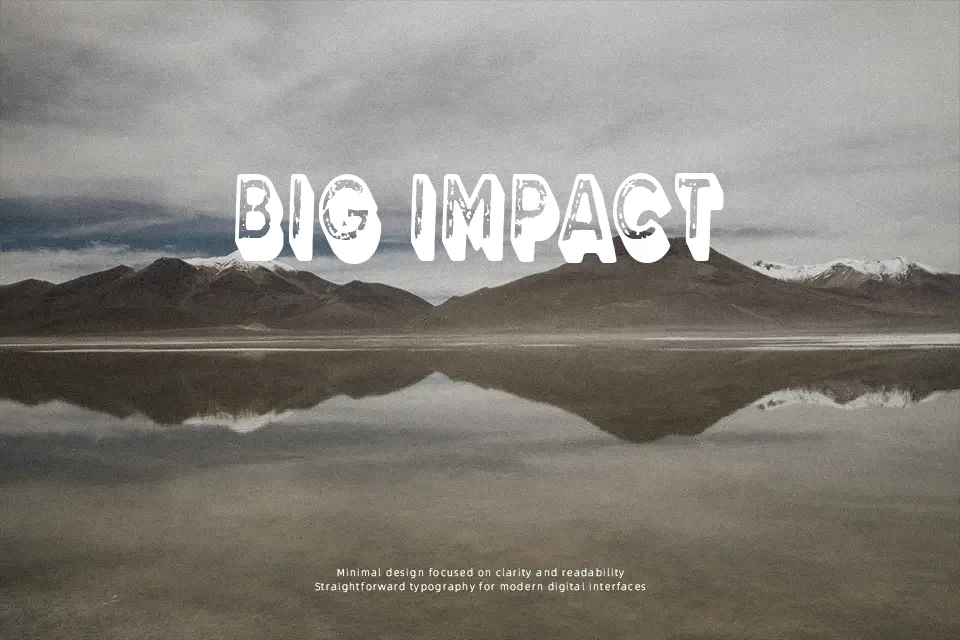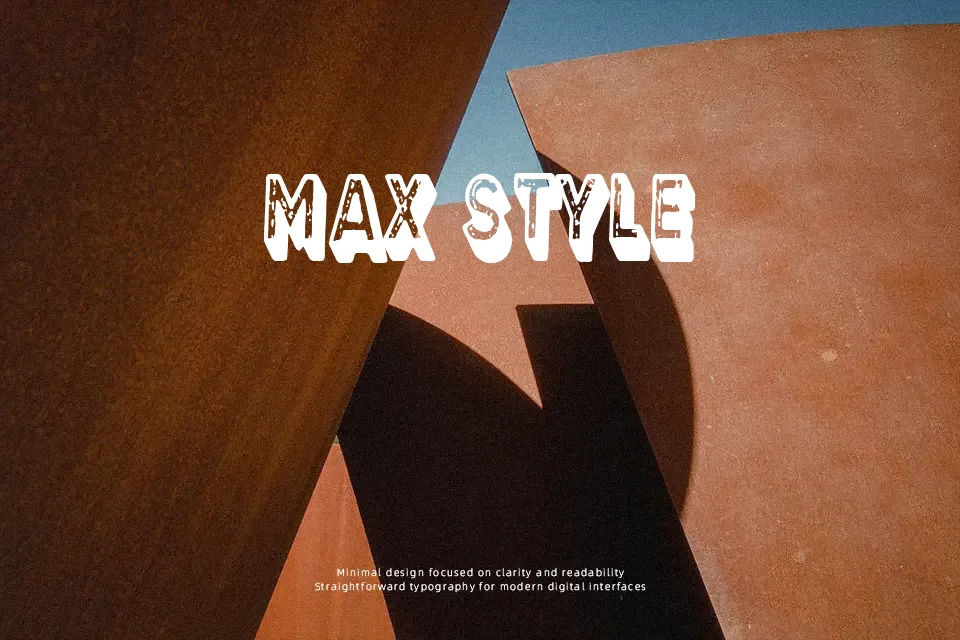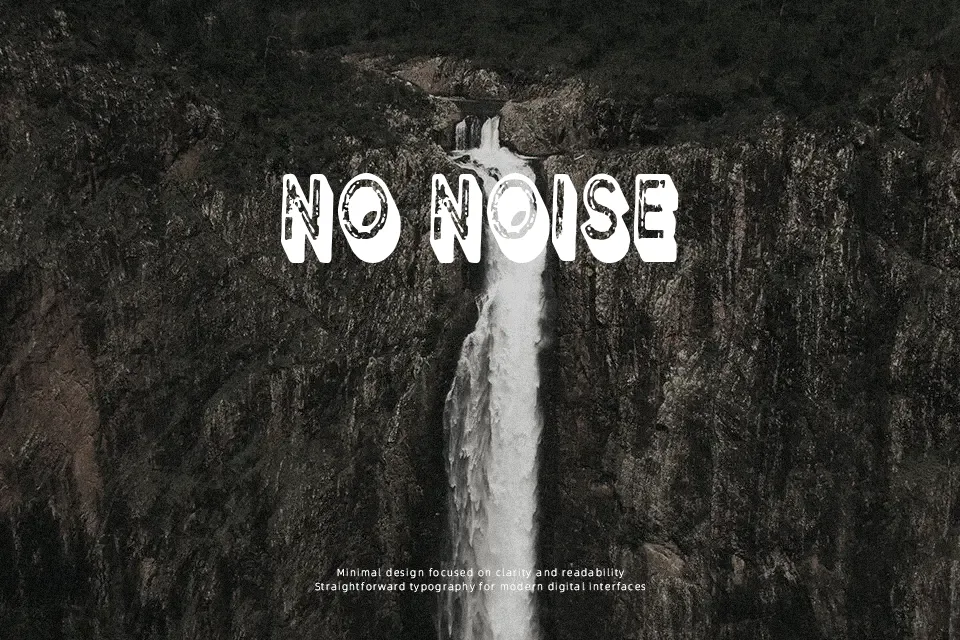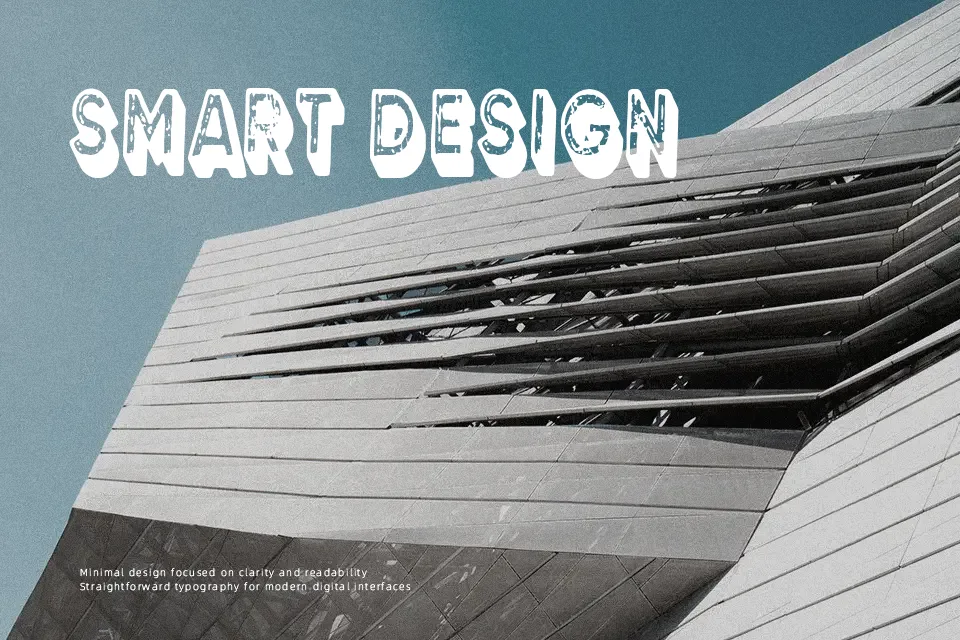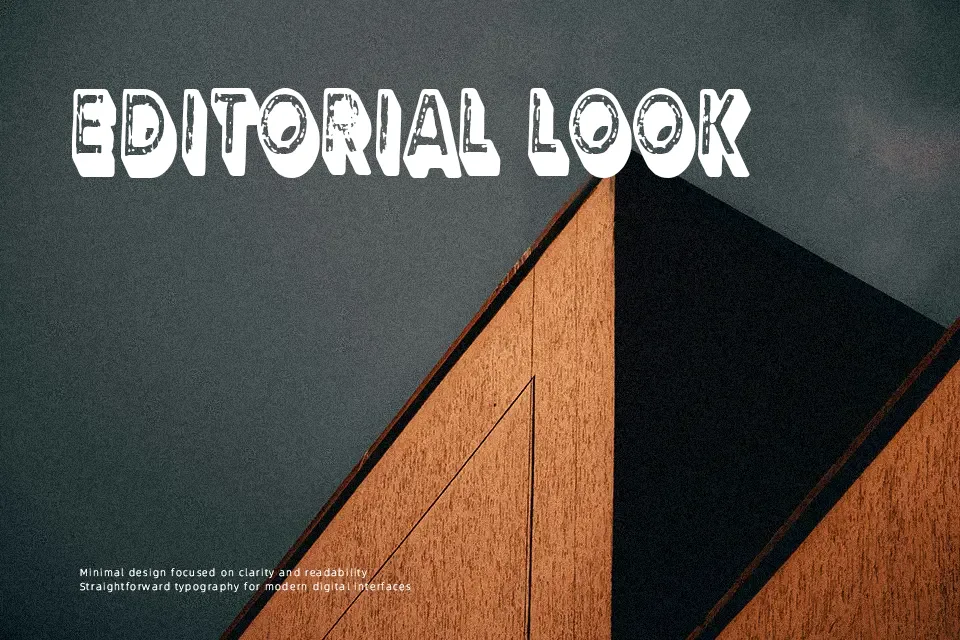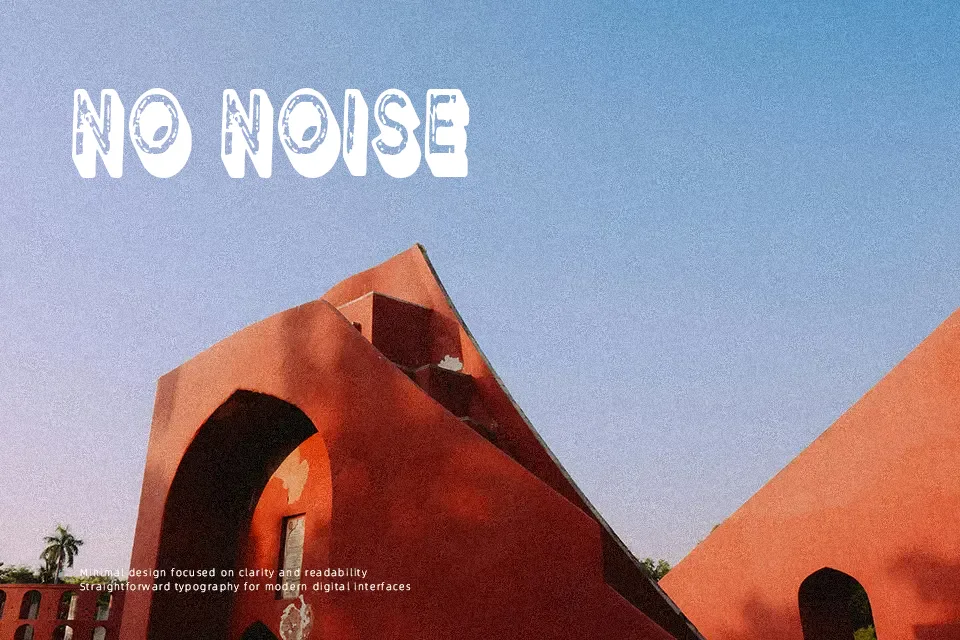
3D Grunge Studio Font
The letterforms carry visible wear — chipped edges, uneven stroke weight, and a pressed-dimensional structure that reads as both aggressive and handcrafted. It sits firmly in the decorative display category, built for headers and graphic treatments rather than running text. Where this font earns its place is in music merch, horror-themed visuals, or street-culture branding where roughness is intentional. That said, it struggles at small sizes — the texture detail collapses below roughly 24pt, making it unreliable for subheadings or captions. It also resists pairing with clean, minimal layouts; the tonal gap is too wide to bridge without effort. Use it when the design calls for something that looks like it survived something.
– Band or music event poster headers
– Halloween and horror-themed promotional graphics
– Streetwear or underground label branding
– Gaming channel titles or thumbnail text
– Body text or anything below 24pt
– Corporate or professional brand materials
– Clean, minimalist layout systems
– Multi-language or symbol-heavy typesetting
Perfect for gaming, halloween, and logo, with a bold and decorative style.